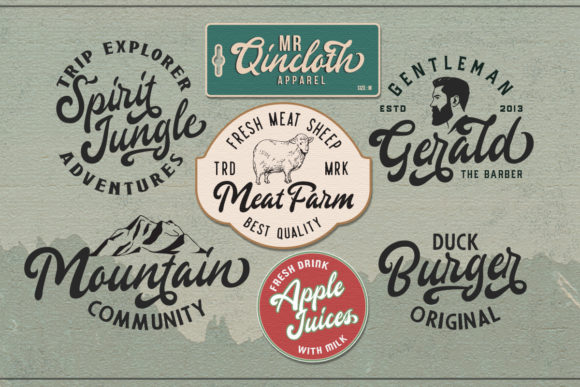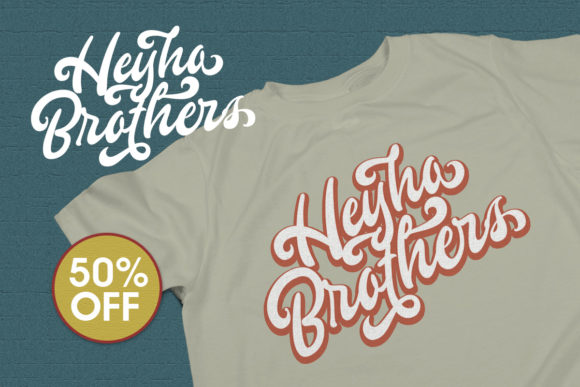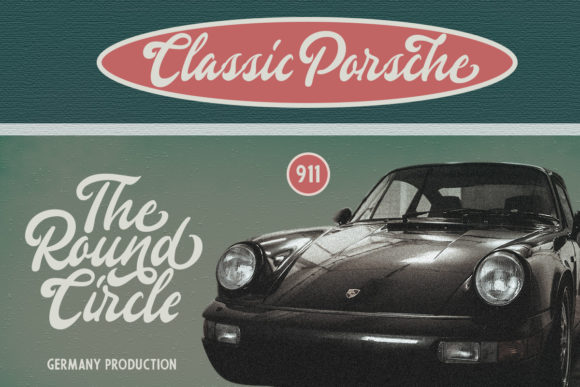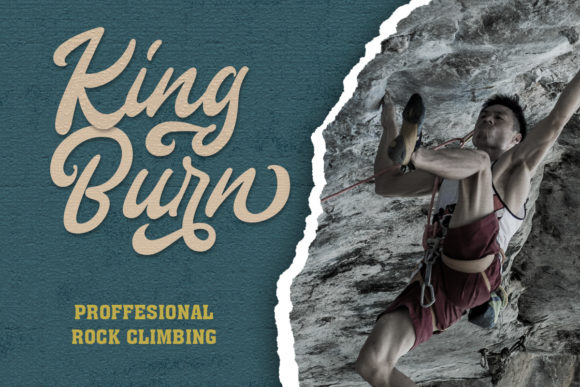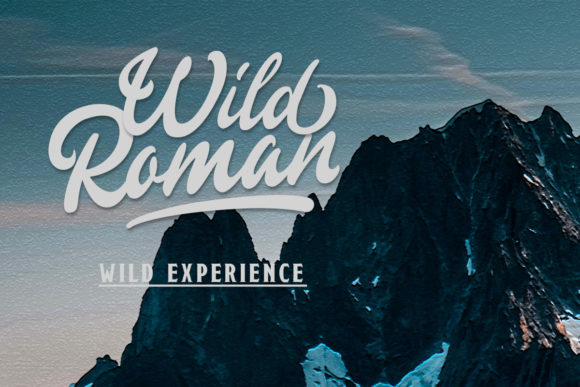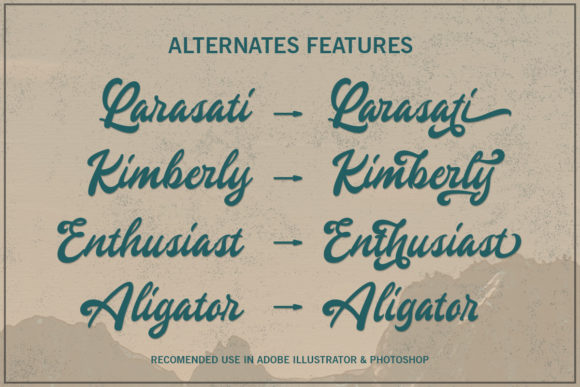
The Designer’s Delight: A Deep Dive into the Gingerly Font
I still remember the time I was working on a wedding invitation project, and my client asked for a font that was both elegant and charming. I scoured the internet, tried out countless fonts, but nothing seemed to fit the bill. That was until I stumbled upon the Gingerly font. It was love at first sight! ✨ The font’s beautiful swashes and elegant lines instantly captured the essence of the wedding theme, and my client was thrilled with the result.
An Honest Review of Gingerly Font
- ✨ Elegant and charming design that’s perfect for invitations, greeting cards, and more
- 💫 Beautiful swashes and stylistic alternates to add a personal touch
- 📚 Extensive character set for versatility in various design projects
While the Gingerly font is a stunning addition to any design project, there are a few things to keep in mind: ⚠️
- 🤔 Some users may find the font a bit tricky to pair with other fonts, so experimentation is key
- ⚠️ The font’s swashes and glyphs may not work well with all design software or platforms
The Backstory of Gingerly Font
The Gingerly font was designed by a talented type designer who’s passionate about creating beautiful, elegant fonts. The designer’s inspiration came from traditional calligraphy and hand-lettering, with a focus on creating a font that’s both charming and sophisticated.
Q: What is the Gingerly font best used for?
A: The Gingerly font is perfect for designing invitations, greeting cards, quotes, logos, business cards, and more.
Q: Is the Gingerly font PUA encoded?
A: Yes, the Gingerly font is PUA encoded, making it easy to access all the glyphs and swashes.